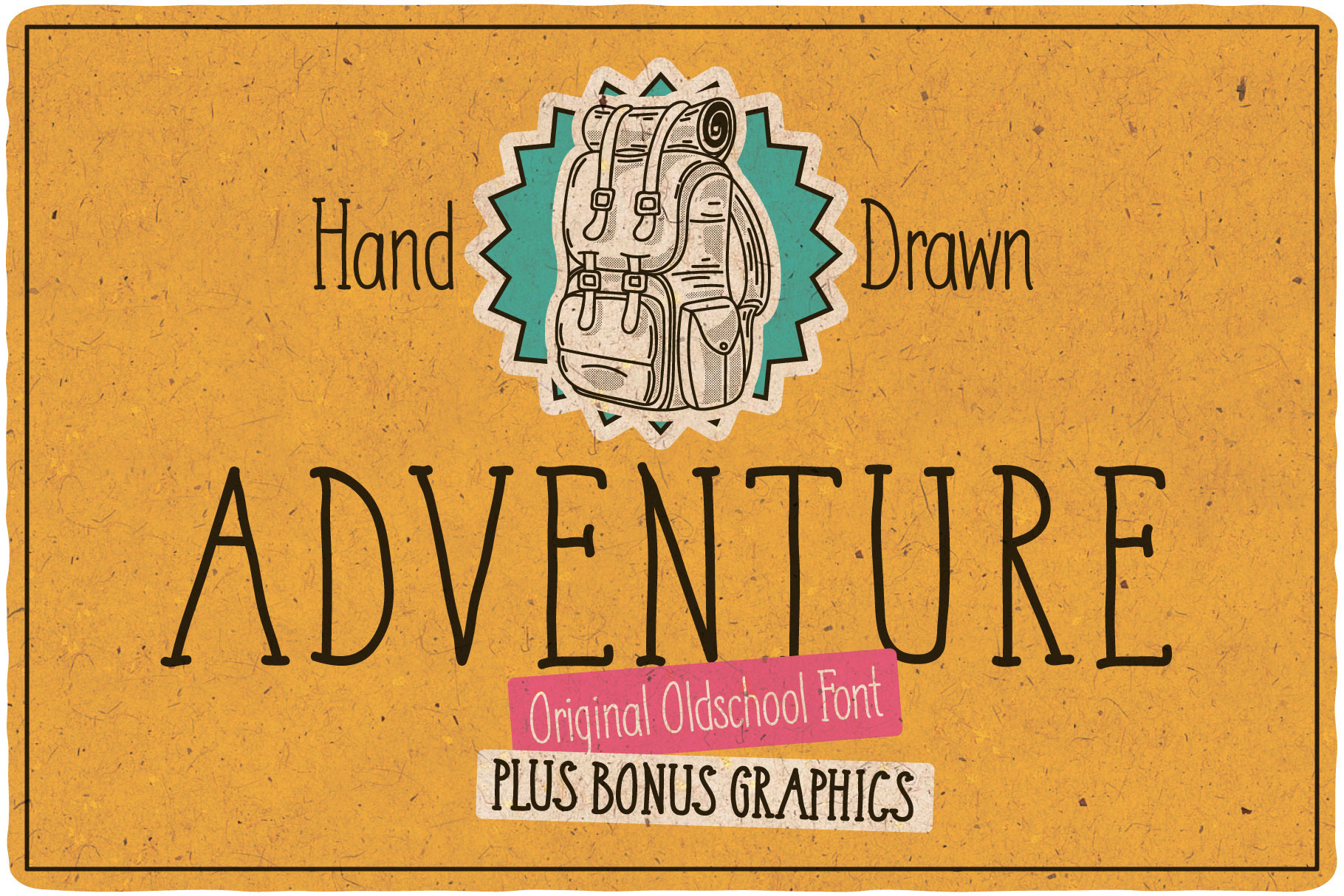
Adventure Typeface
Introducing a hand crafted oldschool label font named "Adventure".Typeface includes two styles - Regular and Bold. This font will good viewed on any retro design like poster, t-shirt, label, logo etc.